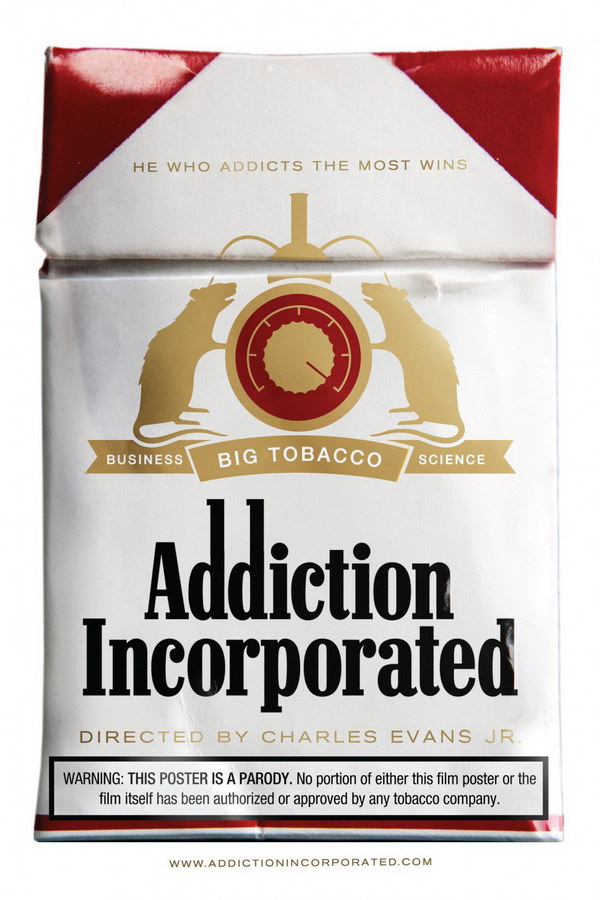
Addiction Incorporated Font
DocumentaryAddiction Incorporated is a documentary film that examines the tobacco industry's decades-long efforts to manipulate research and deceive the public about the health risks of smoking.
The movie title in the poster features a bold and condensed font similar to Neo Contact. The Neo Contact font, designed in an Egyptian serif style, was released by URW and is most well-known for its use on Marlboro cigarette packaging.